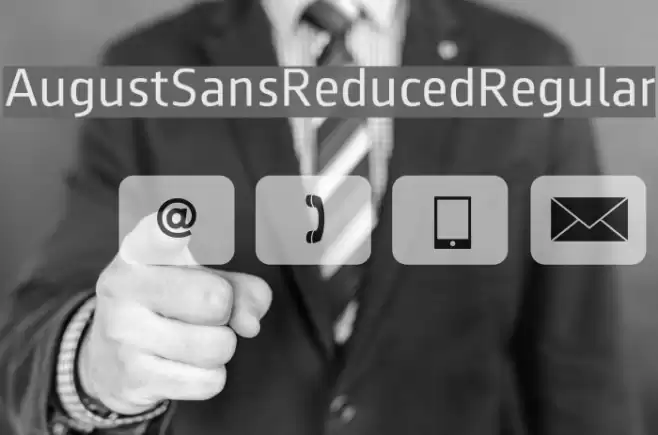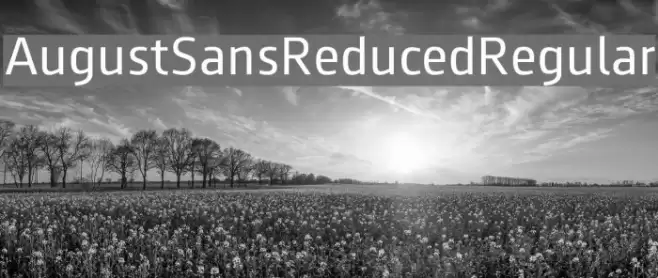
AugustSansReduced-Regular Font
AugustSansReduced-Regular Description
This typeface exhibits a clean and modern aesthetic, characterized by its sans-serif structure. The letters are well-proportioned with a consistent stroke width, giving it a uniform appearance. The uppercase and lowercase letters are distinct, with a slight curvature on certain characters like 'a' and 'e', adding a subtle touch of elegance. The numerals are straightforward and align seamlessly with the overall style, ensuring readability. The special characters are designed to match the simplicity and clarity of the alphabet, making this font versatile for various applications.
A clean, modern sans-serif font with consistent stroke width and elegant curvature from Uncategorized fonts.
- Proposed Projects: Ideal for branding, web design, and editorial projects where clarity and modernity are essential.